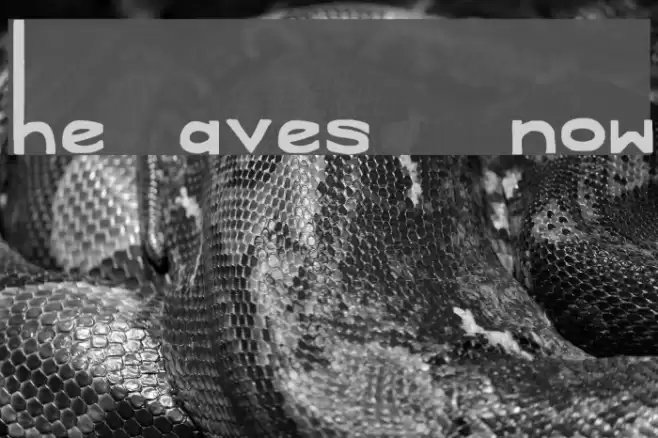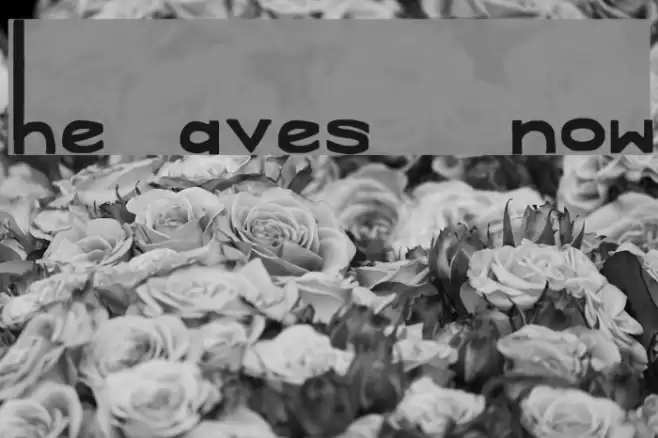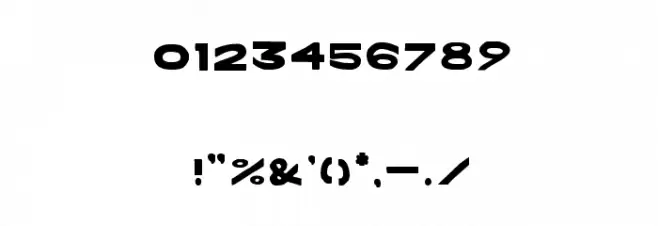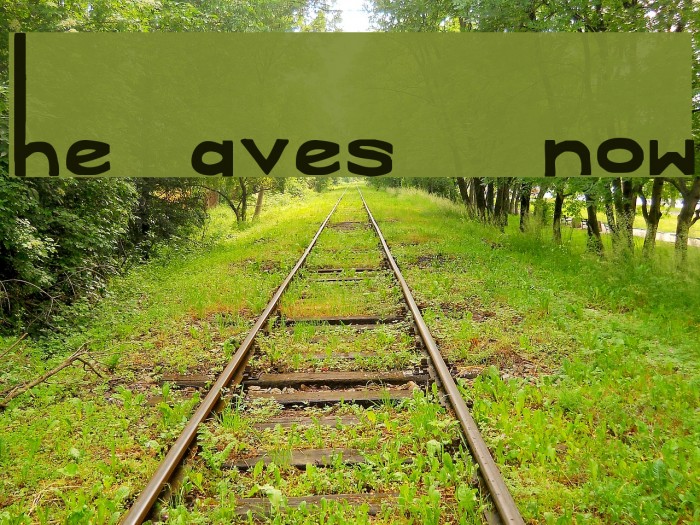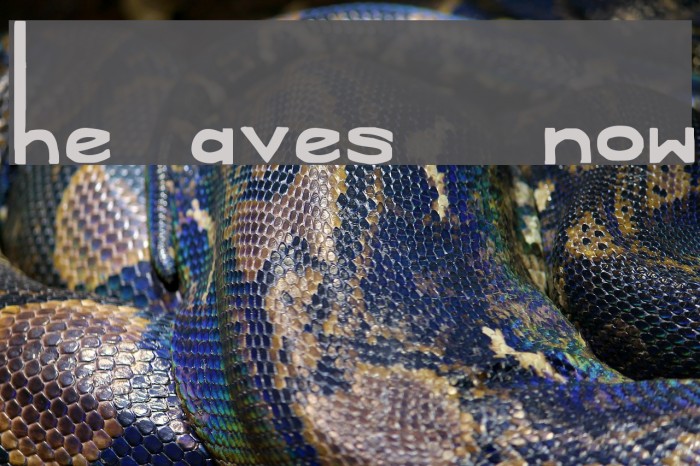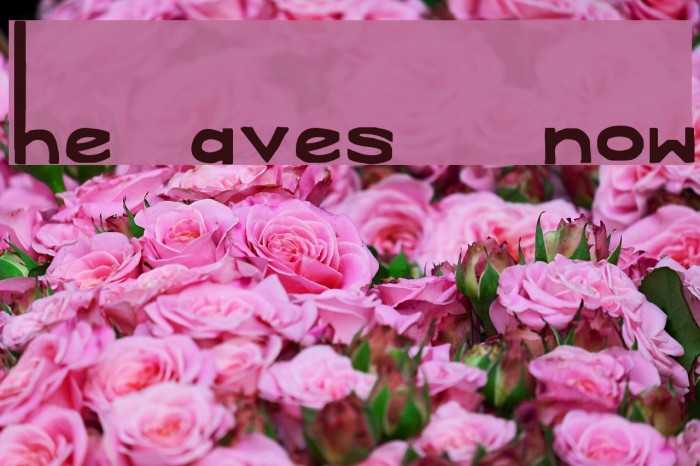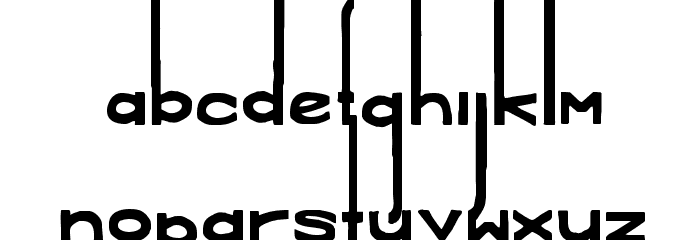
The Daves I Know Font
The Daves I Know Description
This font features a unique and playful design with elongated vertical strokes that create a whimsical and artistic appearance. The characters are bold and rounded, giving a sense of modernity and creativity. The lowercase letters have a distinctive style with exaggerated ascenders and descenders, adding a dynamic flow to the text. The numbers and special characters maintain the same playful aesthetic, making this font suitable for creative and informal projects. The overall design is eye-catching and memorable, perfect for making a statement.
A playful and artistic font with elongated vertical strokes and bold, rounded characters from Uncategorized fonts.
- Proposed Projects: Ideal for creative projects such as posters, album covers, children's books, and branding for artistic ventures.